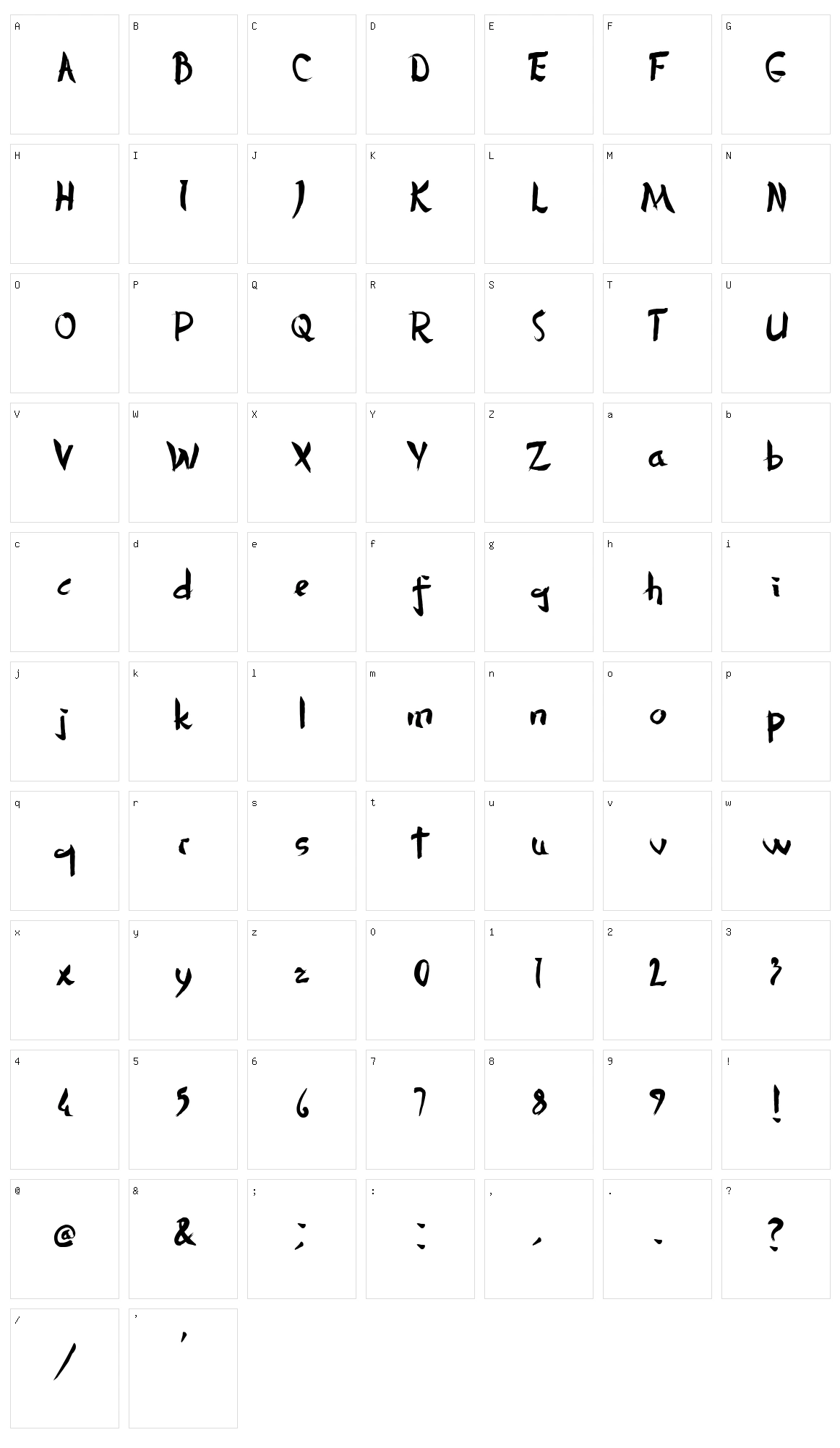
Dersu Uzala Brush
ÿþDERSU UZALA BRUSH is a japanese brush style font. The name is from
(U.S. titles: With Dersu the Hunter and Dersu the Trapper) is the title of a 1923 book by the Russian explorer Vladimir Arsenyev.
There is also a movie based on this srory by Akira Kurosawa (1975)
The quote on the poster of this font is :
"The Fire: Man. Alive and moving. The water, the wind are Men as well.
They are all very strong people. The most important man is the Sun, if he dies, all die. "